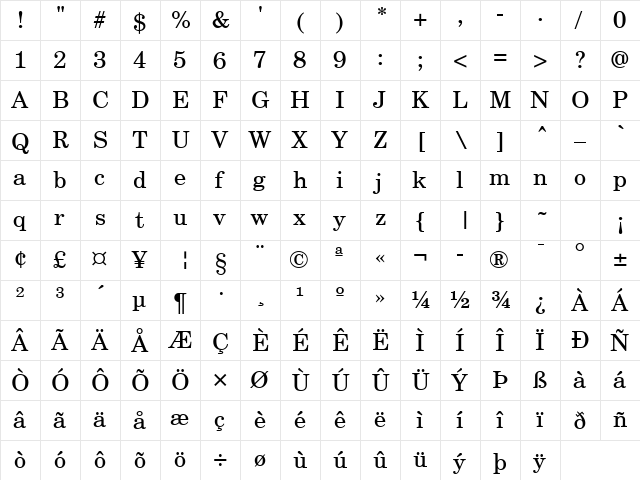
Copenhagen Roman
Design Context for Copenhagen Typeface
Copenhagen is a composed and adaptable typeface that performs quietly and consistently across a wide range of design contexts.